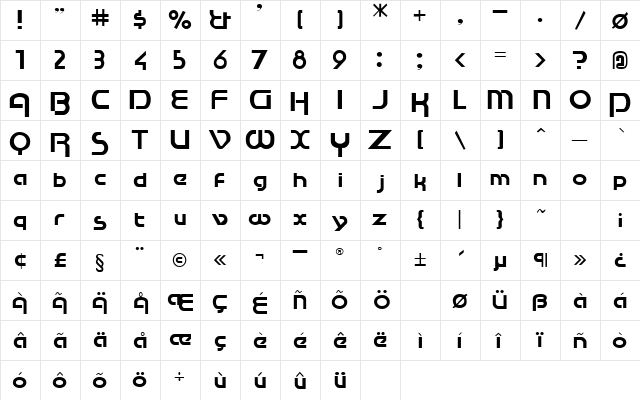
Cupertino Regular
Design Context for Cupertino Typeface
Cupertino takes a measured approach to typography — its balanced proportions and neutral character make it a reliable workhorse for both digital and print work.